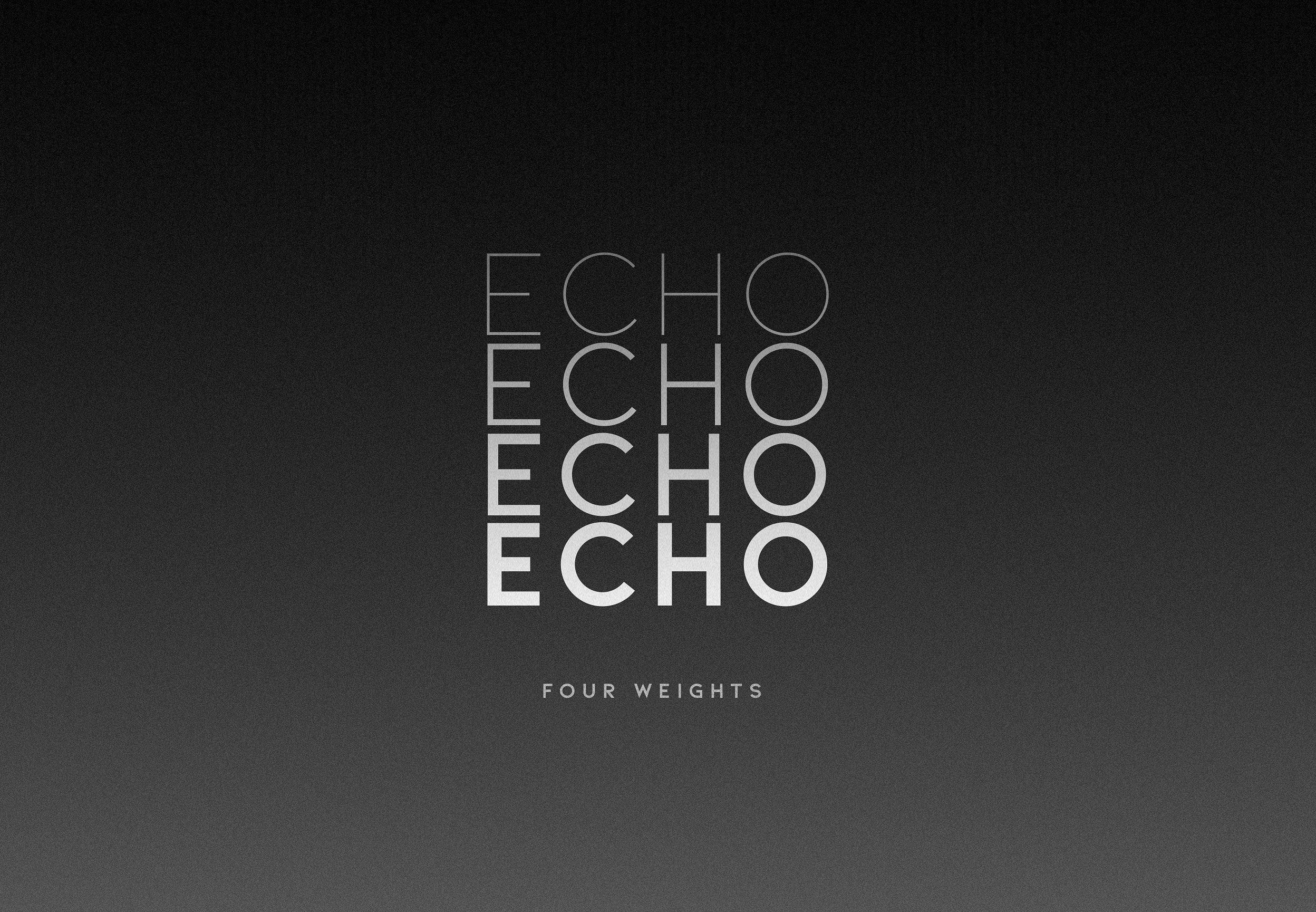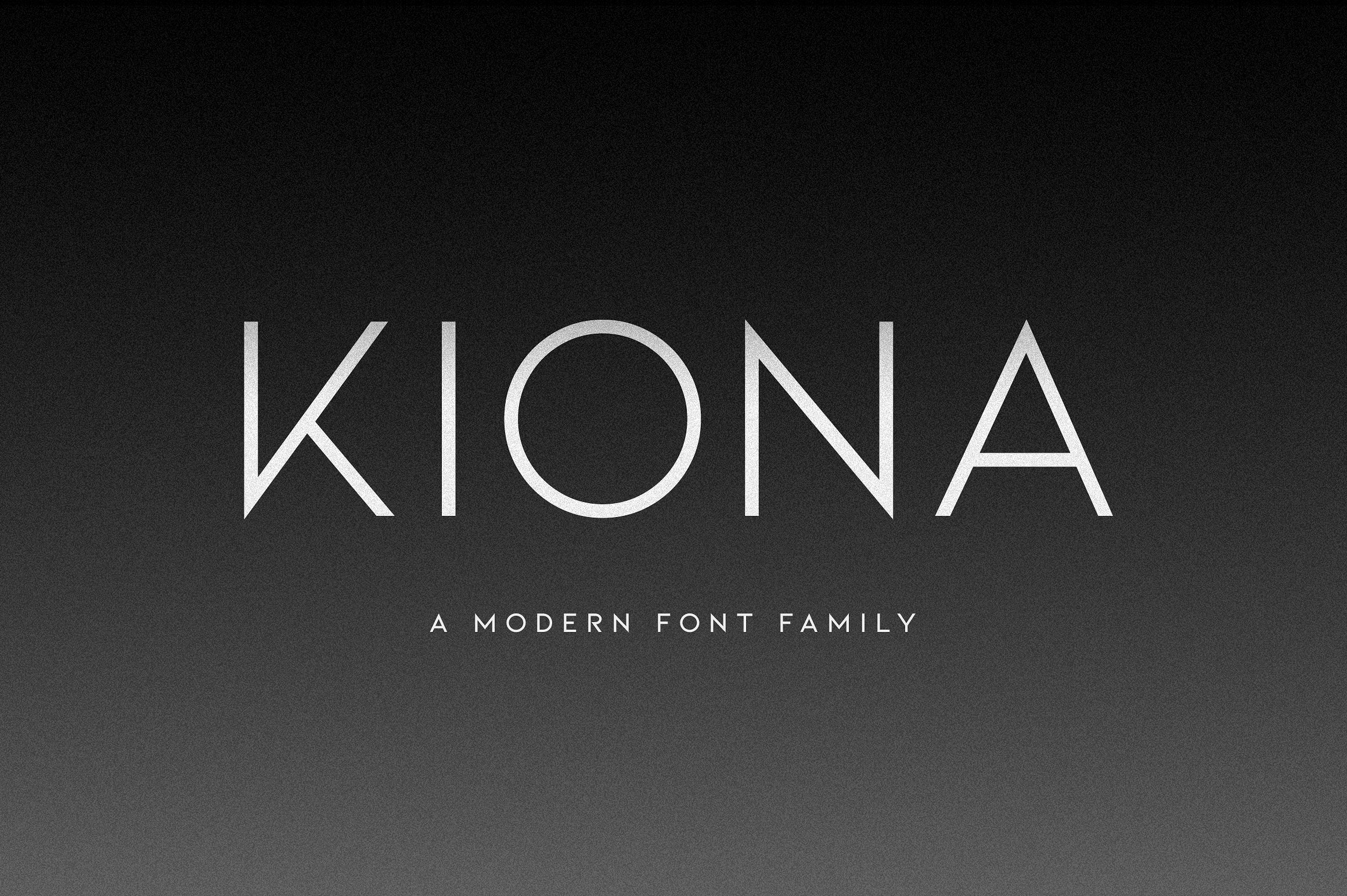
Kiona
Kiona Font Family
KIONA is simple but significant, and defined by its crisp edges and modern touches. It is designed for optimal legibility. An all caps sans-serif, KIONA makes a statement without making a scene.